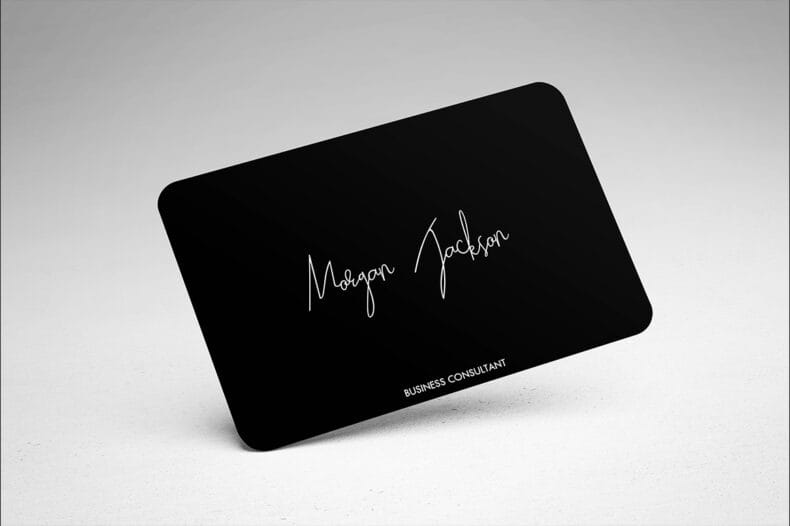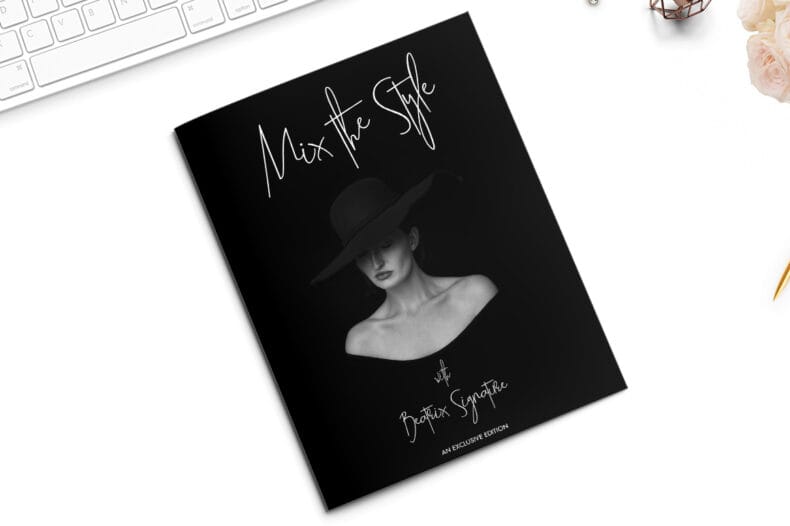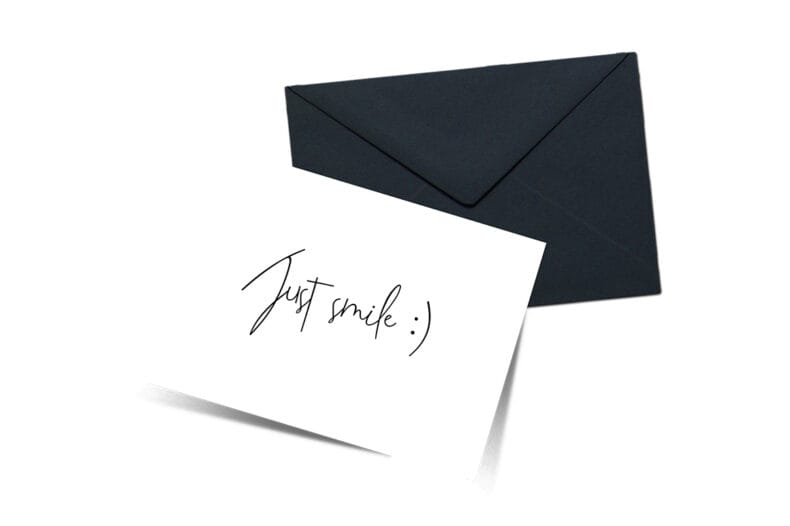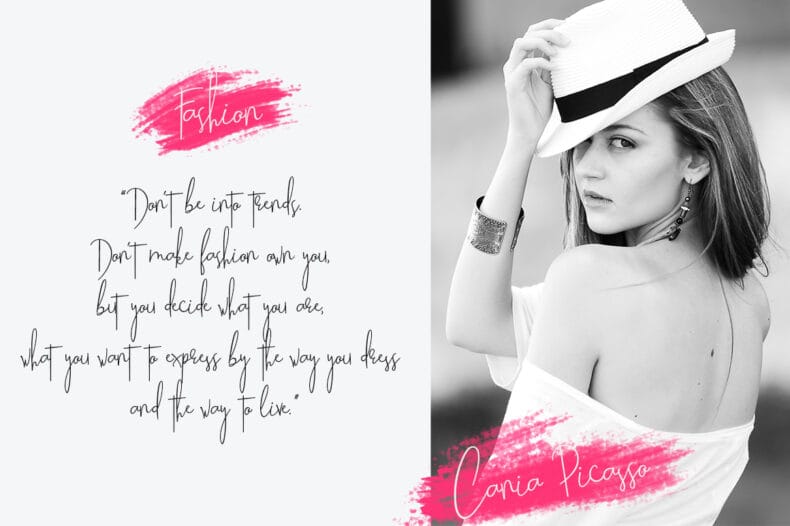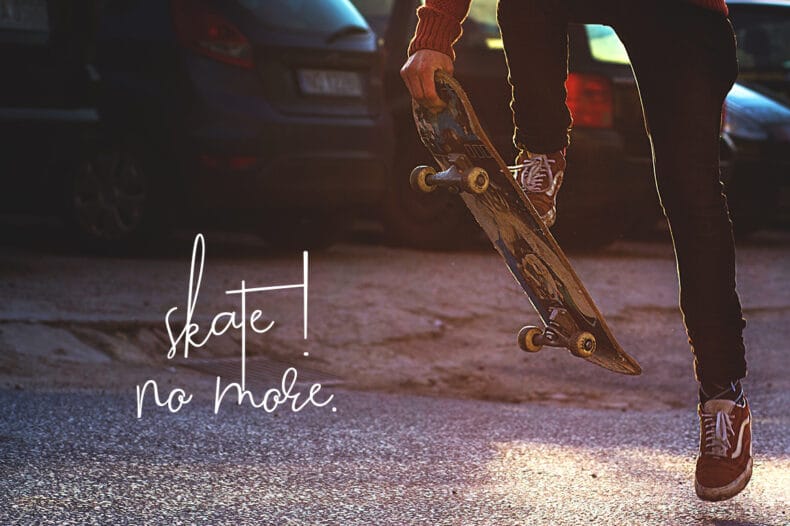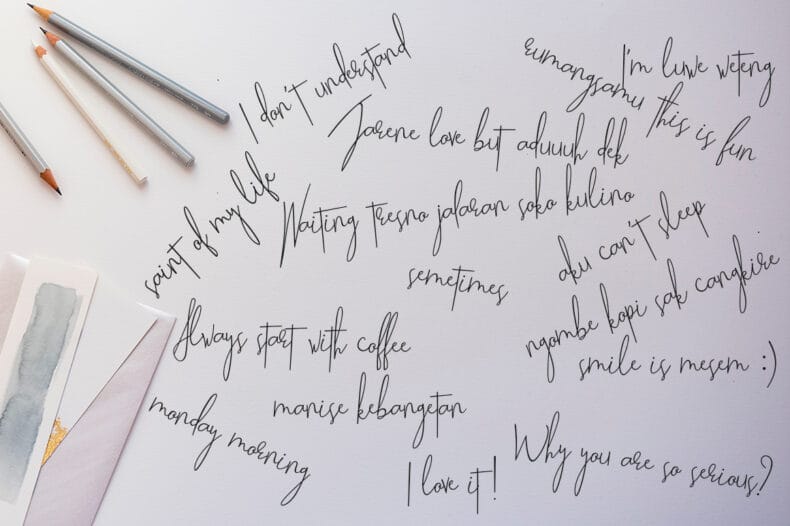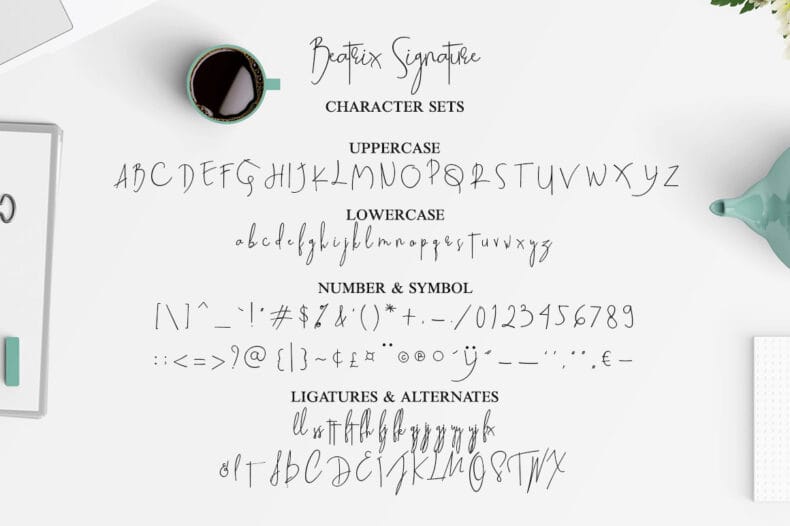
Beatrix Signature is a handwritten font with natural pen gestures, ligatures, and stylistic alternates for selected characters. Explore it for personal branding and refined text accents.
Beatrix Signature offers a handwriting-focused direction for a name, packaging message, or short phrase over photography. It can provide a personal element while the rest of the composition remains structured.
Selected alternate characters and ligatures give you options for refining the lettering, and the font is PUA encoded. Test your wording against the intended background and use simple supporting type to maintain a clear hierarchy.